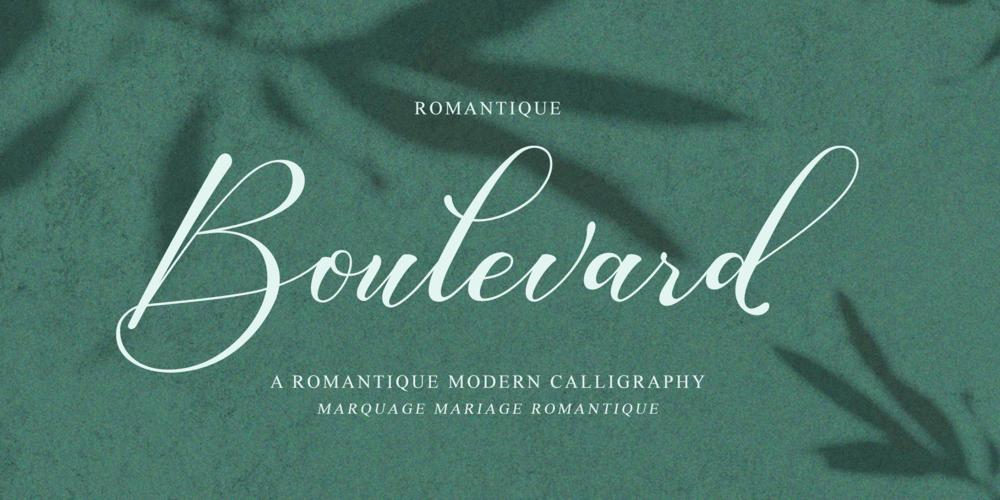
Boulevard
Boulevard font
Boulevard Font Family was designed by Fajri Yandi and published by Doeltype. Boulevard contains 1 styles and family package options. Boulevard is a new romantic modern calligraphiy font with exquisite accents, and distinctive style that is perfect for your branding design. Modern calligraphy with many alternatives. Now this is an opentype! It’s smart and in line with your wishes! You are welcome to use it, suitable for various purposes: logo, signatures, corporate symbol, wedding invitation, title, creative, t-shirt, business card, letterhead, nameplate, headings, label, poster, news, badge, letterhead, cutting, hot stamping, quotation, etc. Includes the initial letter to terminal, alternative, ligature and multiple language support.